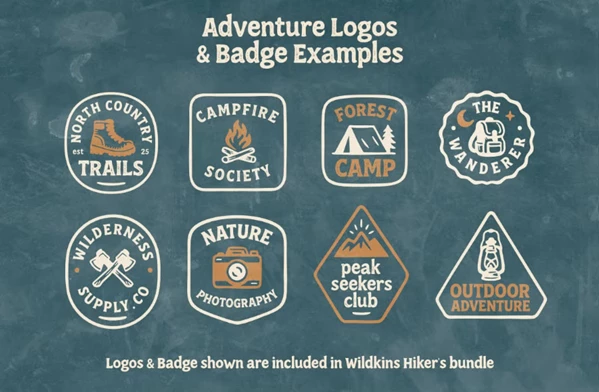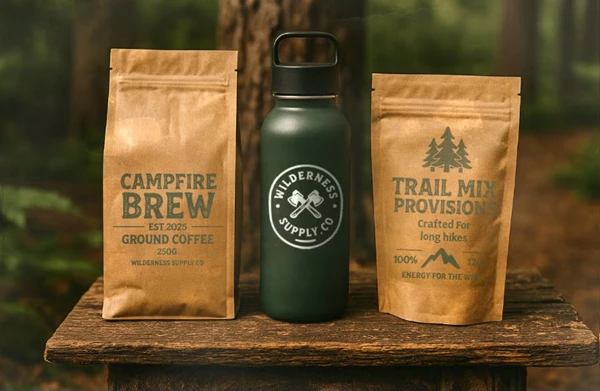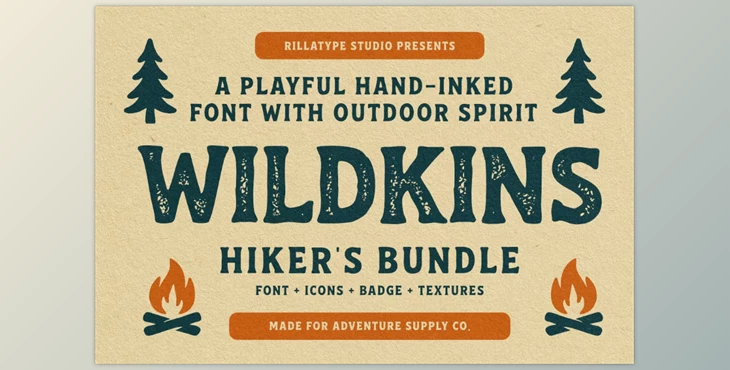
Wildkins Hiker's Bundle - Hand Inked Font:
With the Wildkins Hiker's Bundle, you can creatively design dozens of nature-inspired projects with the showcase of fonts that encompass the adventurous spirit of handwritten ink fonts. With this bundle, you can seamlessly create designs for branding, packaging, signage, apparel, and even labels. Whether you're going for an outdoor theme or just something nature-inspired, this bundle will cater to your needs.
Some great features of Wildkins Hiker's Bundle - Hand Inked Font:
- Five Unique Font Styles: Wildkins Regular, Wildkins Slant, Wildkins Stamp, Stamp Slant, and Wildkins Dingbats which include adventure themed icons will aid you in exploring your creativity.
- Adventure Icons: Over 30 of such icons including tents, fire, compass, backpacks, hiking boots, and maps all screaming adventure were designed to make your designs pop.
- Editable Badge Templates: Eight such templates are ready for you to edit and use to make logos, patches, labels, and branding.
- Bonus Texture Overlays: Three PNGs (Rustic Grain, Worn Paper, Weathered Surface) of your favorite Rustic Grain Worn Paper and Weathered Surface textures to add rustic elegance to your projects.
"Wildkins Hiker's Bundle - Hand Inked Font" Samples: